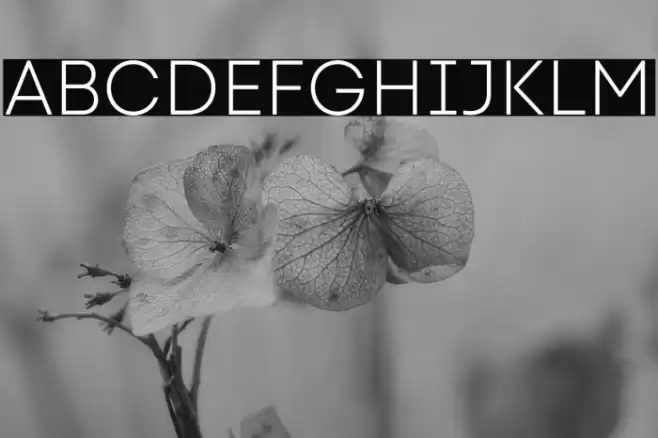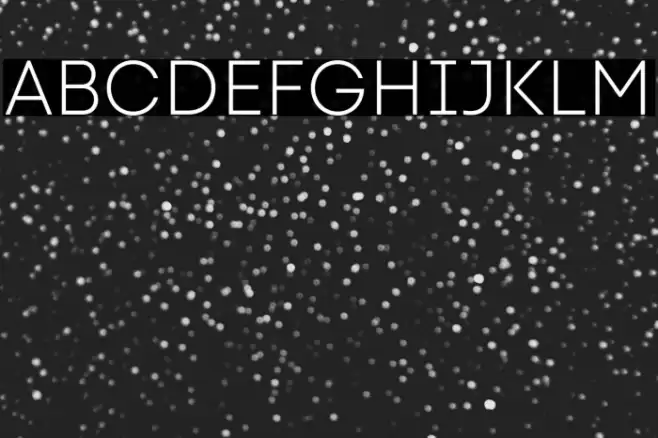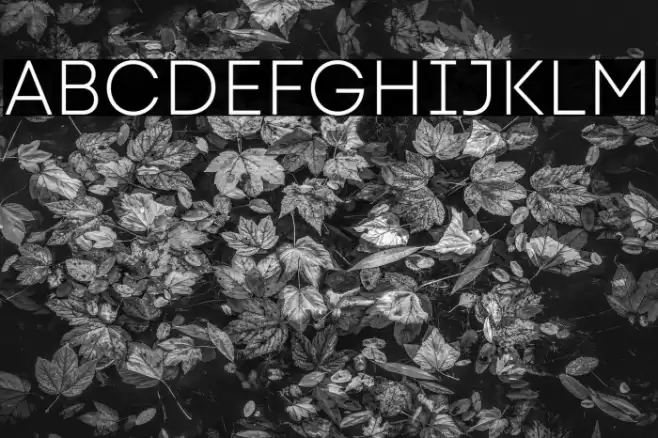
Code Next-Trial Light Font
Code Next-Trial Light Description
This font features a clean and modern design with a geometric sans-serif style. The characters are evenly spaced with a uniform stroke width, giving it a sleek and contemporary appearance. The uppercase and lowercase letters are well-proportioned, and the numerals are clear and easy to read. The special characters maintain the same minimalist aesthetic, making this font versatile for various design needs. Its simplicity and clarity make it suitable for both digital and print media.
A modern, geometric sans-serif font with clean lines and uniform stroke width from Uncategorized fonts.
- Weight: Light